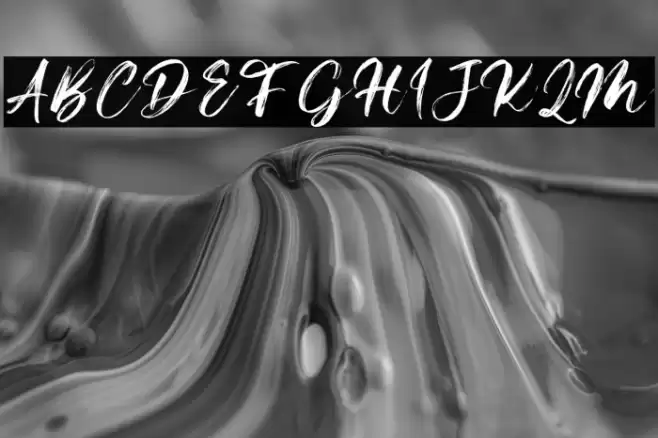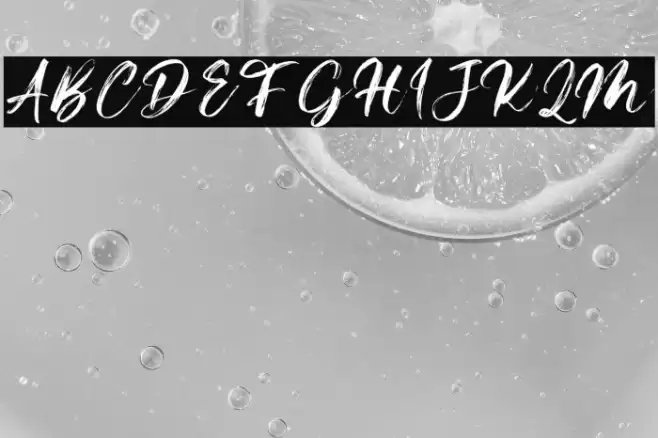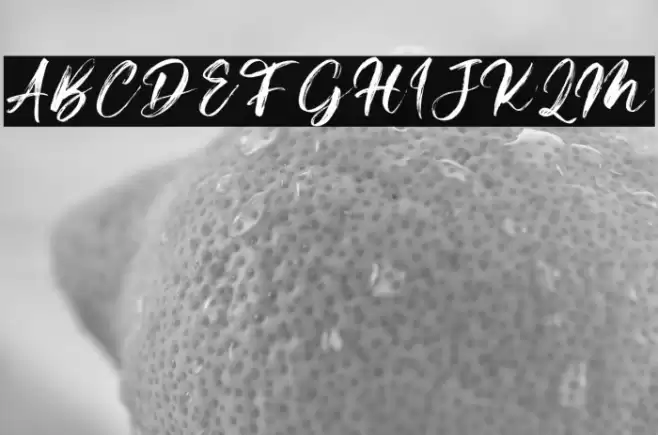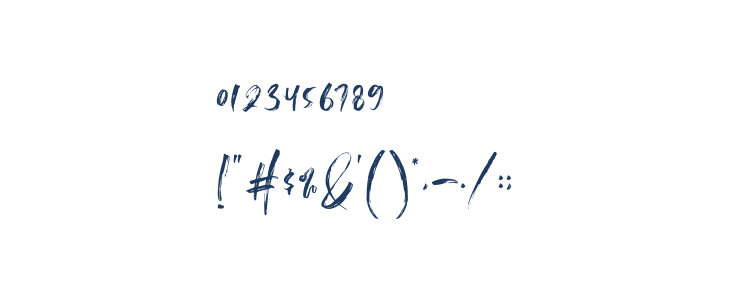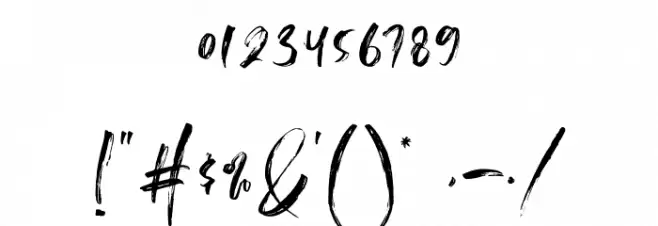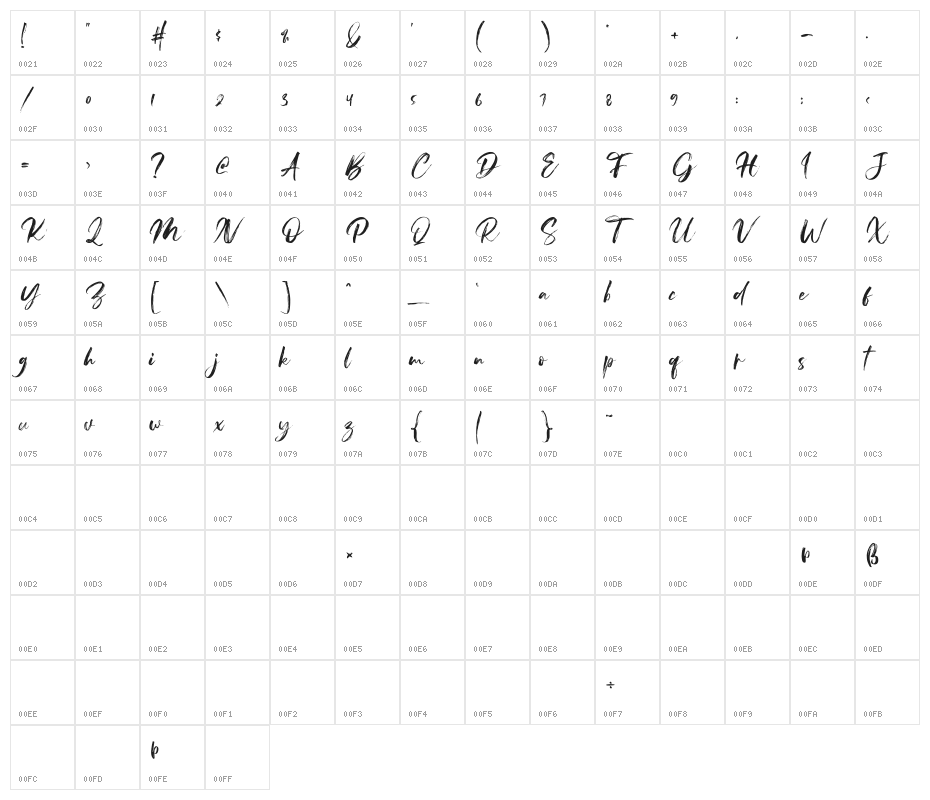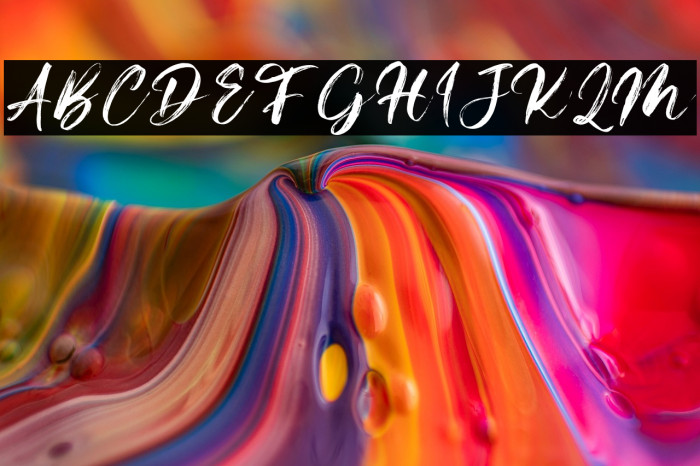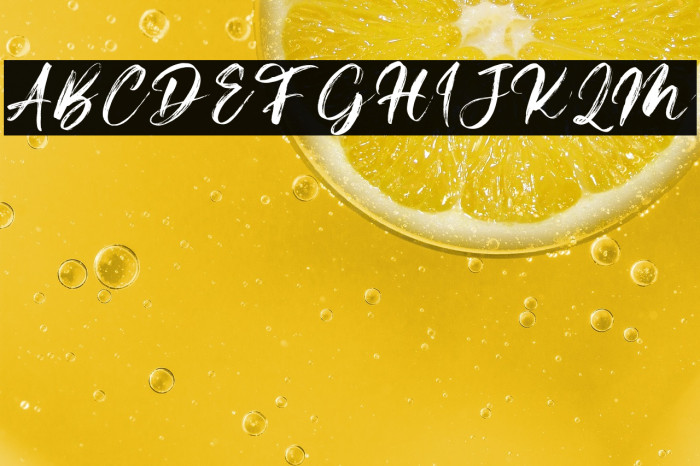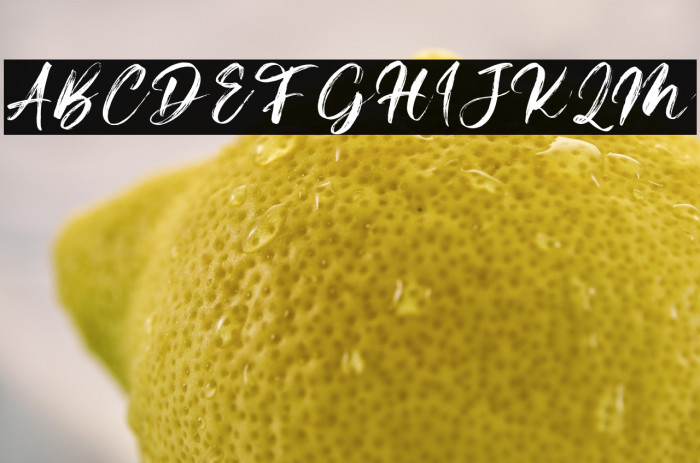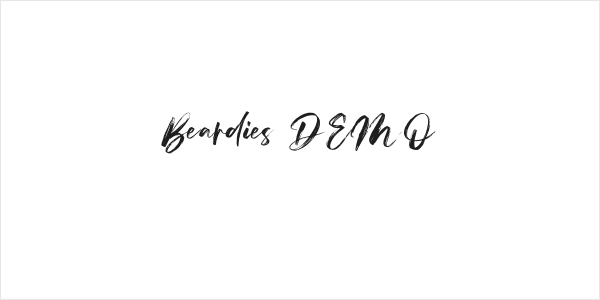
Beardies DEMO Font
This font exudes a bold and artistic flair, characterized by its brush-like strokes that give it a dynamic and expressive appearance. The letters are crafted with varying thicknesses, creating a sense of movement and energy. The uppercase letters are particularly striking, with sweeping curves and sharp angles that add a dramatic touch. The lowercase letters maintain a cohesive style, with a slightly more subdued yet still lively presentation. Numbers and special characters follow the same expressive style, making the font versatile for creative projects. The overall aesthetic is modern and edgy, perfect for making a statement.
A bold, brush-style font with dynamic and expressive strokes from Uncategorized fonts.
- Proposed Projects: Ideal for branding, posters, invitations, and any project requiring a bold, artistic touch.
- Overall Style: Modern, Artistic